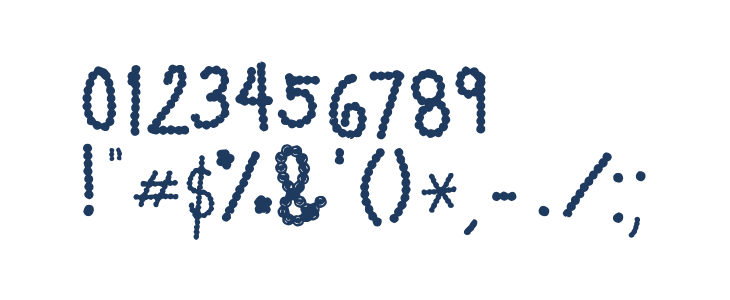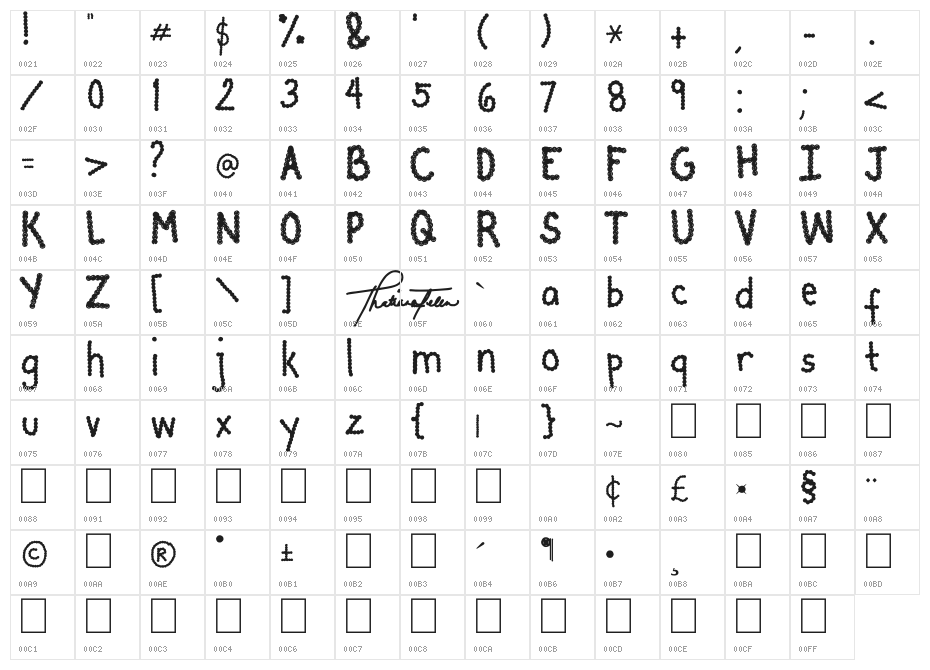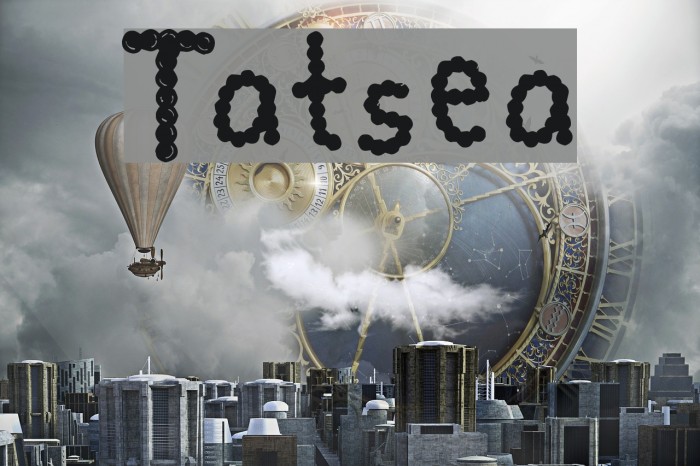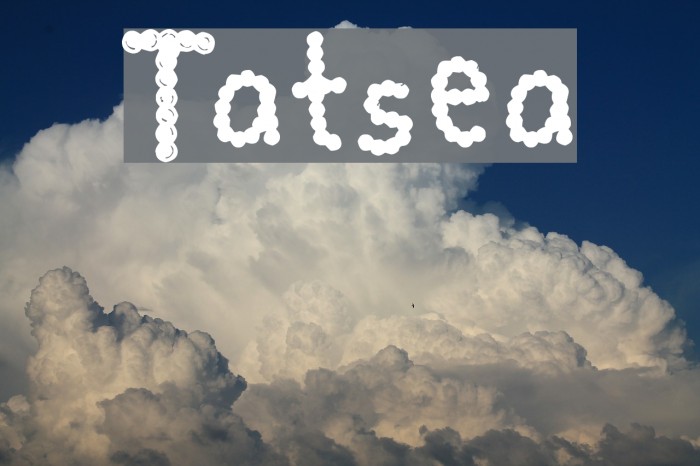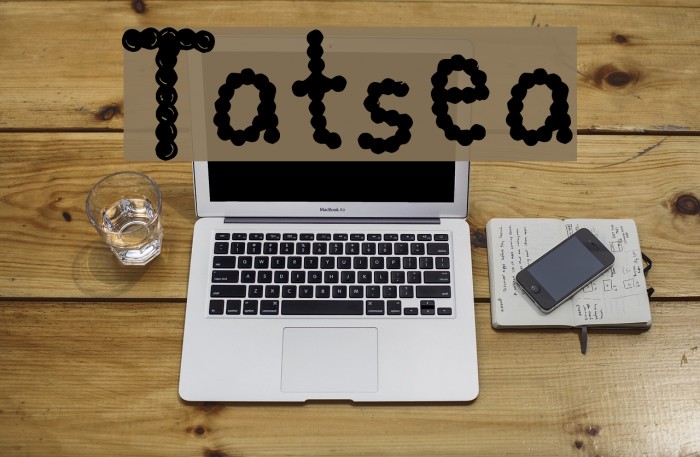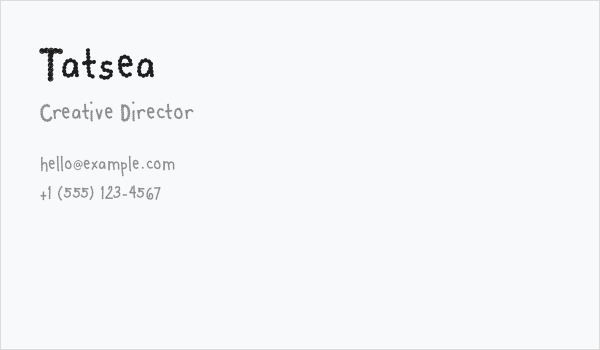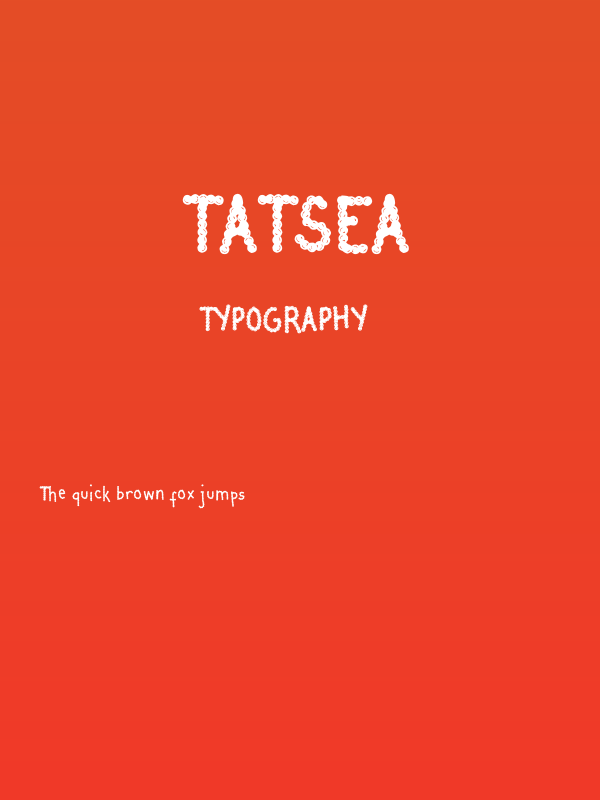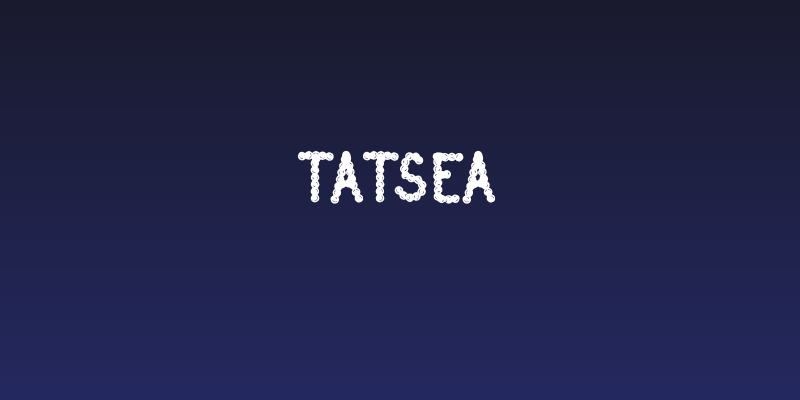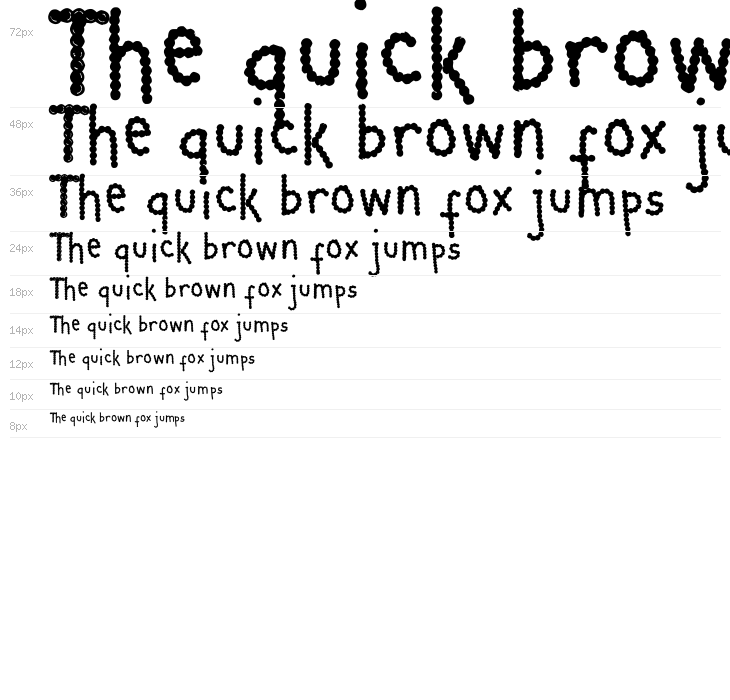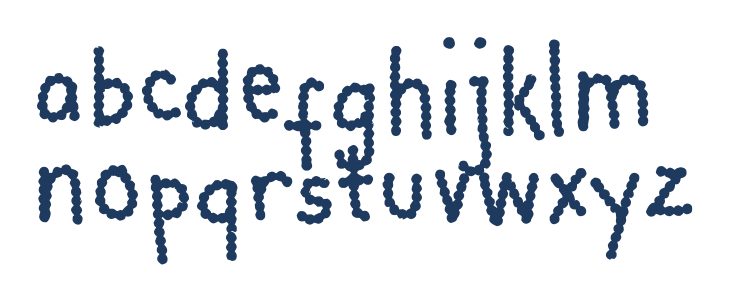
Tatsea Font
Tatsea Description
This font features a playful and unique design, characterized by its bubble-like, rounded shapes that give it a whimsical and fun appearance. Each character is composed of small, circular elements that create a textured and dynamic look. The font maintains a consistent thickness throughout, contributing to its cohesive style. Its distinctiveness makes it stand out, making it suitable for creative and informal applications. The font includes a full set of uppercase and lowercase letters, numbers, and a variety of special characters, ensuring versatility in its use.
Overall StylePlayful
Proposed ProjectsIdeal for children's books, playful branding, party invitations, and creative posters.